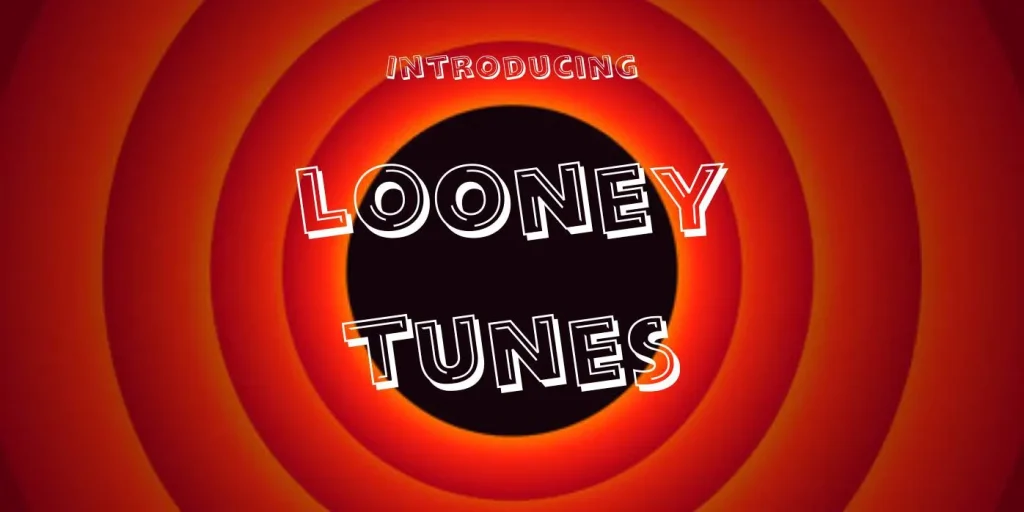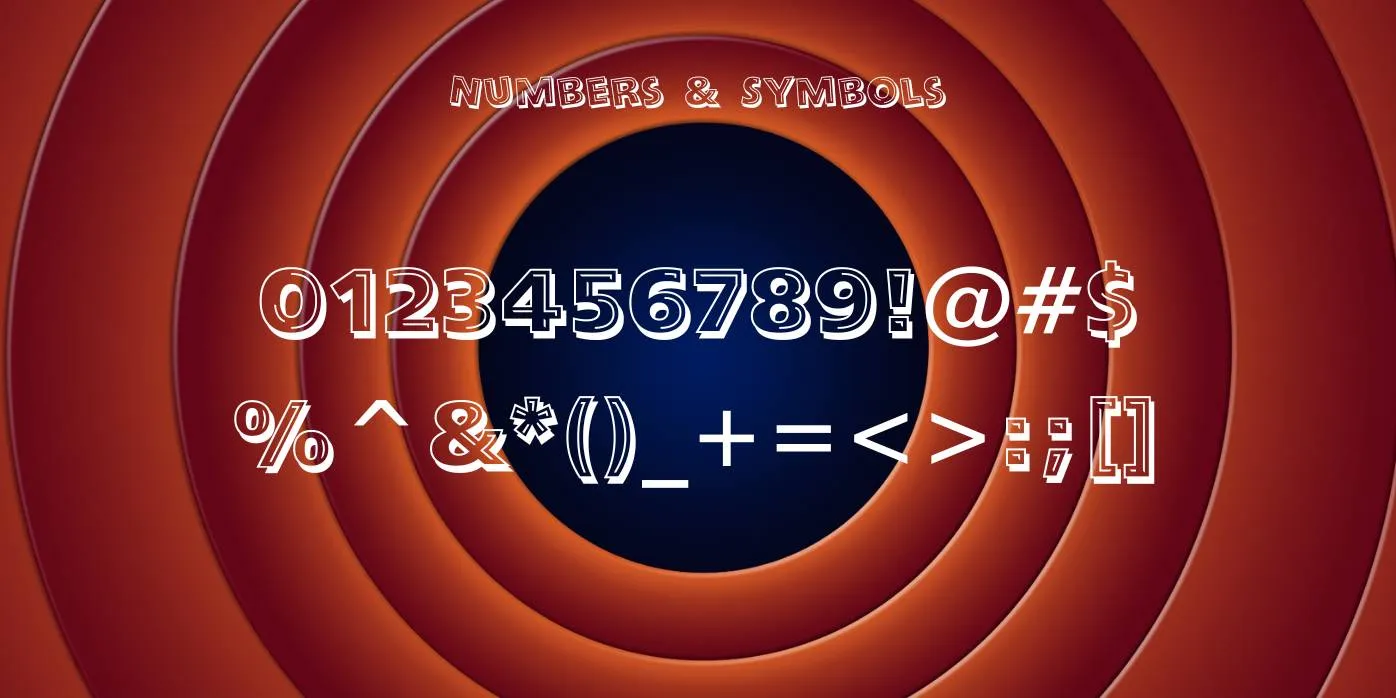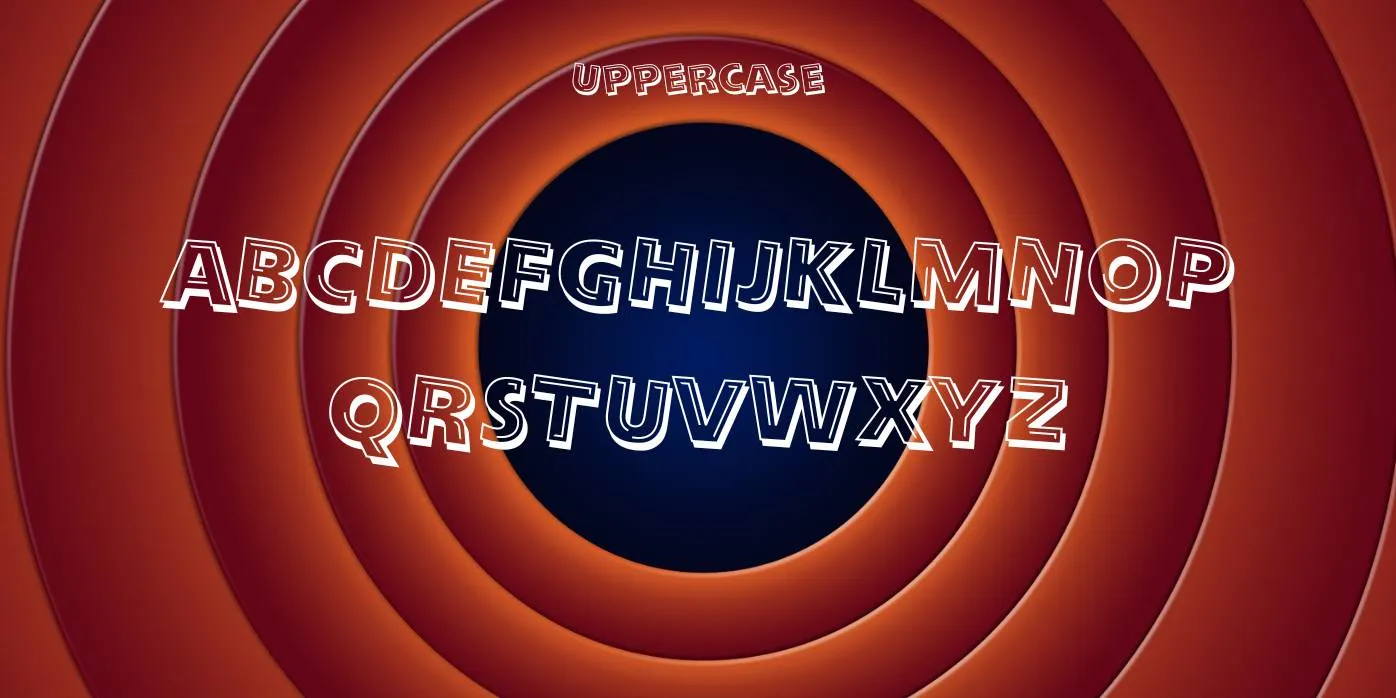
Looney Tunes Font
Looney Tunes Font is a logotype texture that is motivated by an American animated short movie named “Looney Tunes”. This font was created by Warner Bros and released in 1930. It Includes Regular style along with unique and stylish characters with large and small letters, figures, punctuations, symbols, signs, and a few special characters.
What Original Font Is Used In Looney Tunes Logo?
Looney Tunes is an American animated comedy short movie that was released in 1933. The original font used in its logo is similar to Looney Tune Tilt BT Font.
Designer Warner Bros
Style Fancy
What Was The Looney Tunes Font Used For?
What is Looney Tunes typeface?
This typeface is a logotype font that is motivated by an American animated short movie named “Looney Tunes”. This font was created by Warner Bros and released in 1930.